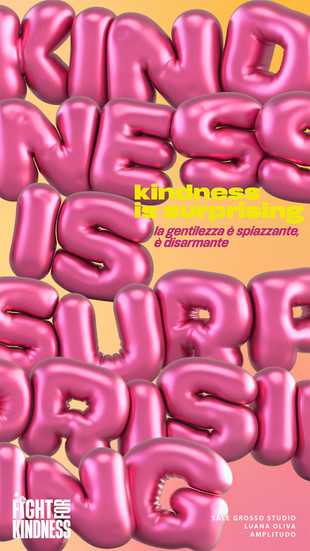
“Kindness is...” an Interactive Exhibition from the Fight For Kindness 2024 Edition
With World Kindness Day approaching on November 13 and the incredible exhibitions of the FFK 2025 Edition coming to life worldwide, we wanted to look back at one of the standout moments from last year’s edition — the interactive exhibition “Kindness is…”.
It's a collective project by Sale Grosso, Luana Oliva Design, and Amplitudo Sound Agency who joined the Fight For Kindness 2024 Edition creating amaizing 3D oversize lettering posters.
Posters submission by Sale Grosso, Luana Oliva Design, and Amplitudo Sound Agency for FFK 2024 Edition
But they didn’t stop at just posters — they brought their work to life as an interactive exhibition in the immersive space of The Gallery Adv in Florence, Italy, the pedestrian passage between Santa Maria Novella Station and Via Panzani, runned from November 27 to December 1, 2024.
“Kindness is…” shows what kindness can be — or rather, gives just a hint of it, because the list of its potential and wondrous qualities cannot be captured in a 30-second video. Oversized lettering fills the LED walls across all 25 meters in length, enhancing the sense of depth in the space.
Usage of the typeface Extenda by Zetafonts, a versatile sans serif with a wide range of widths, allowed maximum visual coverage in a large space like The Gallery, while also enabling the transformation of the different adjectives into three-dimensional forms.
Each element (3D typography, fonts, sound effects, color palette) contributes to amplifying the meaning of each adjective:
kindness is powerful [la gentilezza è potente, è un’arma rivoluzionaria]
kindness is overflowing [la gentilezza è rigogliosa, è strabordante ]
kindness is revolutionary [la gentilezza è rivoluzionaria, innesca il cambiamento ]
kindness is contagious [la gentilezza è contagiosa, propaga il buonumore ]
kindness is surprising [la gentilezza è sorprendente, è disarmante]
A pop-up advice messages invite passersbies to perform small everyday acts of kindness since kindness can be practiced in countless ways and on countless occasions, and even the most ordinary gesture can take on a new flavor and intensity when infused with kindness. And of course, the invitation is to join the #fightforkindness movement!